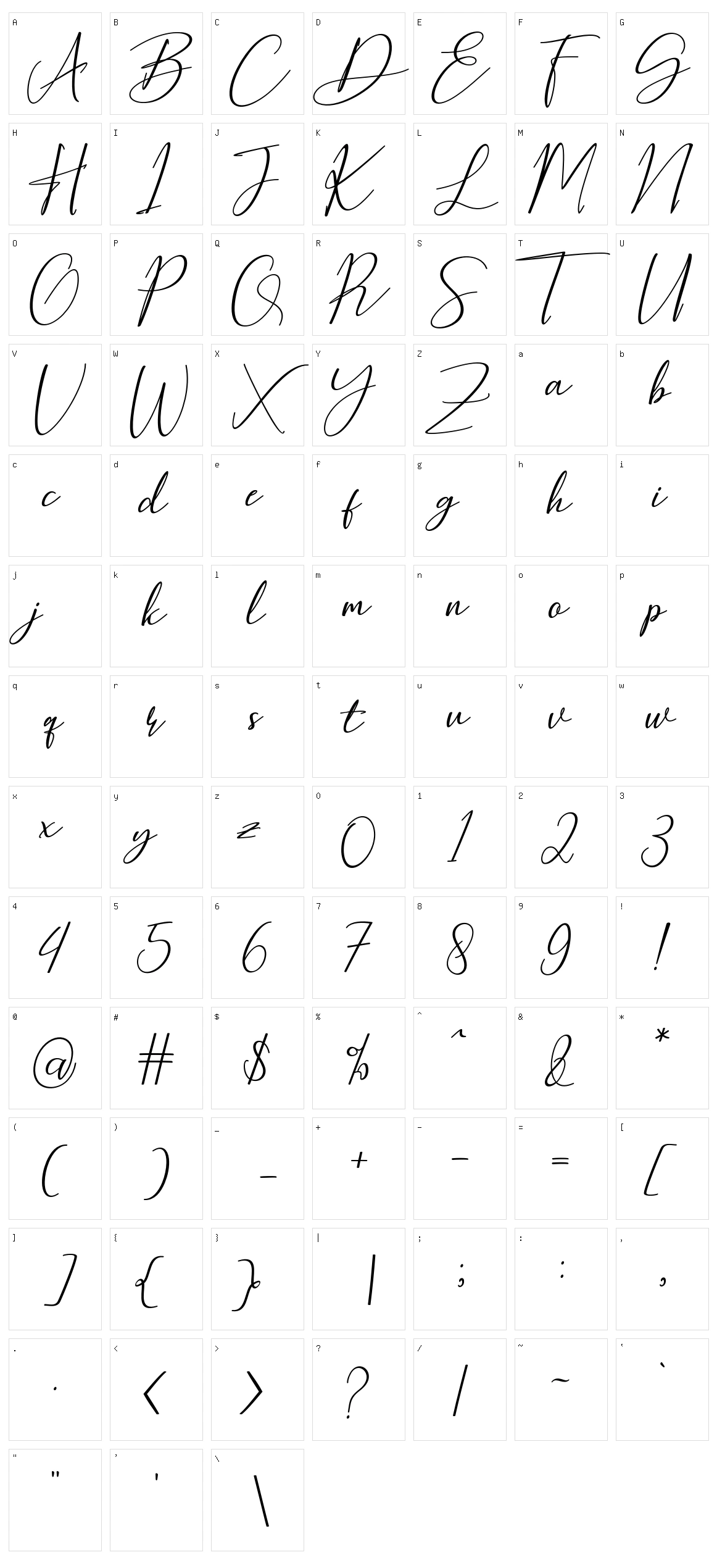
The free font Hearth Stone is carefully designed by mightype, showcasing a thoughtful balance of creativity and usability and falls under the Script font style. When you download the ZIP file, it contains only 56.34 KB of font files, making it lightweight and quick to download. Please review the license details below to understand permitted usage and distribution rights. If license information is not available, we recommend using this font for personal projects only or contacting the author directly for commercial usage permissions.